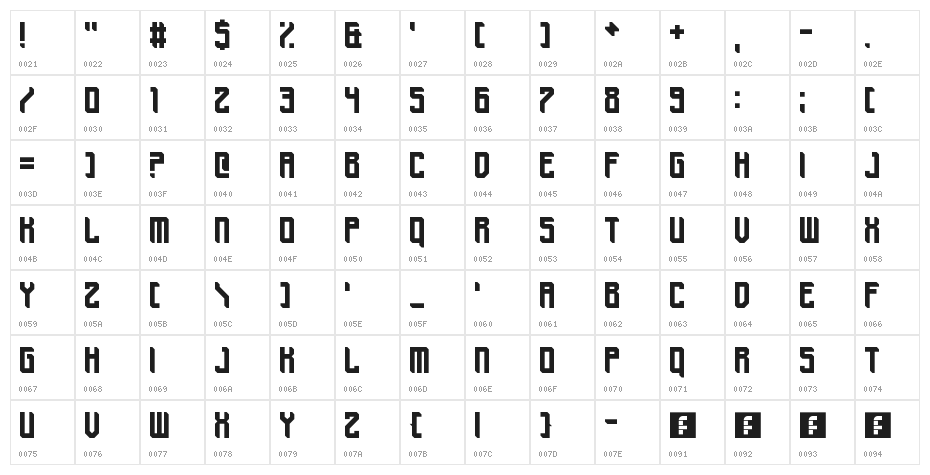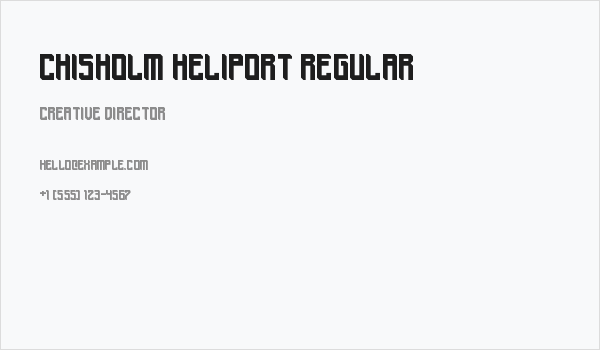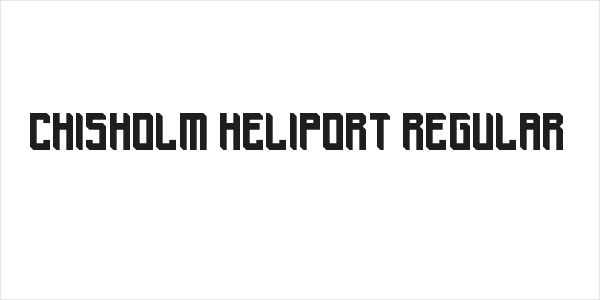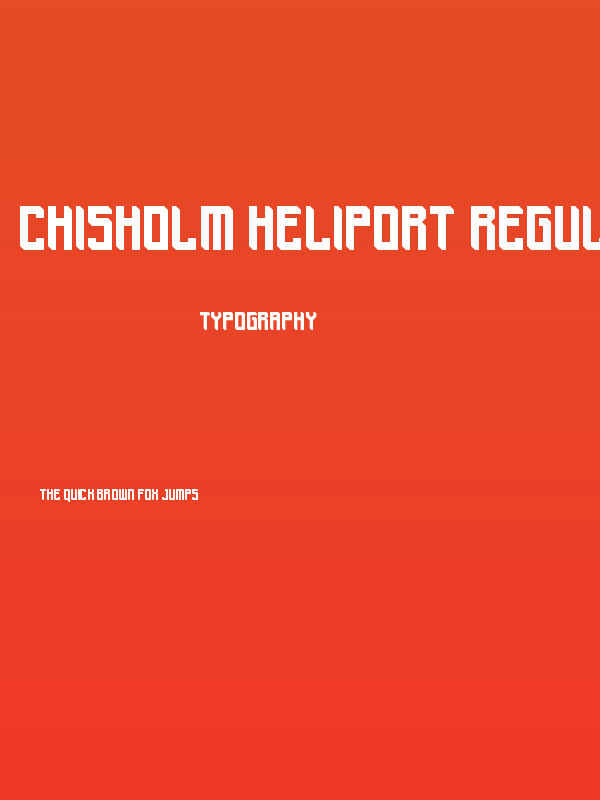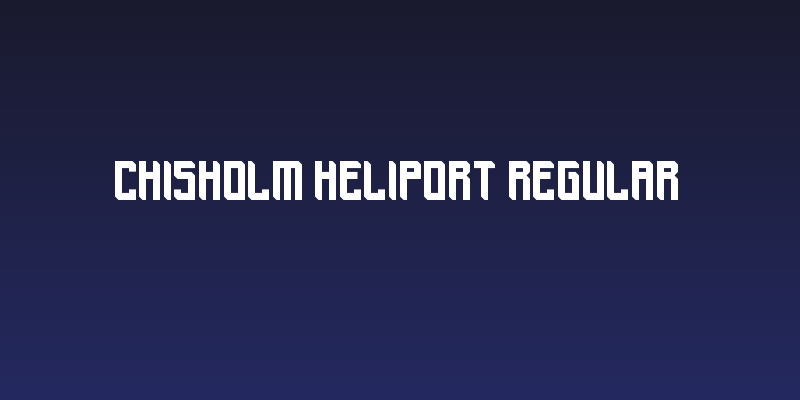
Chisholm Heliport Regular Font
Chisholm Heliport Regular Description
This font exhibits a bold, geometric style with a strong presence. The characters are constructed with thick, uniform strokes, giving them a blocky and industrial appearance. The angular design and sharp edges contribute to a futuristic and mechanical feel. The uppercase and lowercase letters maintain a consistent height, enhancing the uniformity and cohesion of the typeface. The numerals and special characters follow the same design principles, ensuring a seamless integration across all glyphs. This font is highly legible and commands attention, making it suitable for impactful design projects.
| Proposed Projects | Ideal for branding, posters, signage, and any project requiring a strong, modern look. |